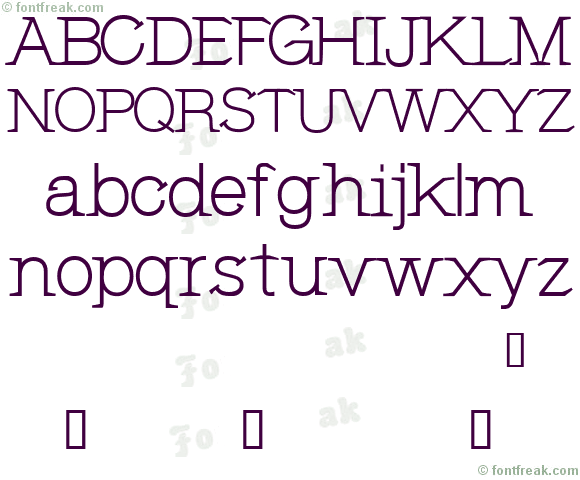
CF Jeanne Mance Regular
About CF Jeanne Mance Regular
CF Jeanne Mance Regular is a sophisticated serif typeface designed by Cloutierfontes, offering a timeless elegance that makes it versatile for various design applications. This font features a moderate stroke weight and a subtle contrast between thick and thin lines, resulting in a balanced and harmonious appearance. The character spacing is generous, enhancing readability while maintaining a graceful flow that draws the eye. Its refined serifs and classic proportions contribute to a sense of tradition and reliability, making it an excellent choice for projects that require a touch of sophistication.
Ideal use cases for CF Jeanne Mance Regular include wedding invitations, where its elegant form can convey romance and grace, and restaurant menus, where it adds a refined touch to the dining experience. Additionally, it is well-suited for book covers, particularly in genres like historical fiction or romance, as well as branding materials for boutiques and artisanal shops seeking to evoke a classic feel. Graphic designers, small business owners, and content creators will find this font particularly appealing due to its versatility and aesthetic charm.
What sets CF Jeanne Mance Regular apart is its ability to blend timeless elegance with modern usability. Its design elements resonate well with audiences looking for a font that communicates both tradition and contemporary style. This makes it a powerful tool for creating visually appealing documents that stand out in a crowded market. For those seeking to enhance their projects with a touch of class, the CF Jeanne Mance Regular font free download is an opportunity not to be missed. It embodies a unique character that can elevate any design, allowing creators to make a lasting impression.